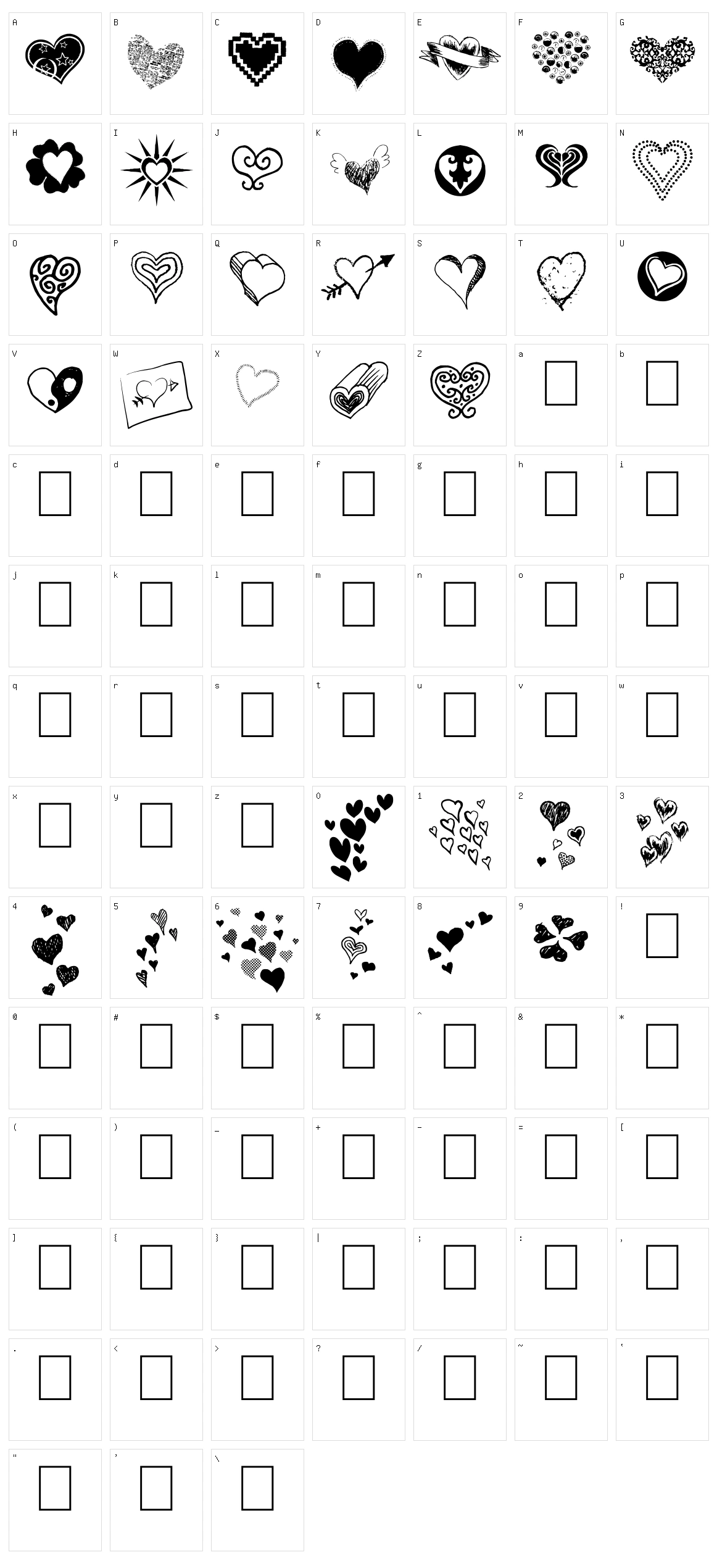
The free font Heartz is carefully designed by imagex, showcasing a thoughtful balance of creativity and usability and falls under the Valentine font style. When you download the ZIP file, it contains only 62.65 KB of font files, making it lightweight and quick to download. Please review the license details below to understand permitted usage and distribution rights. If license information is not available, we recommend using this font for personal projects only or contacting the author directly for commercial usage permissions.